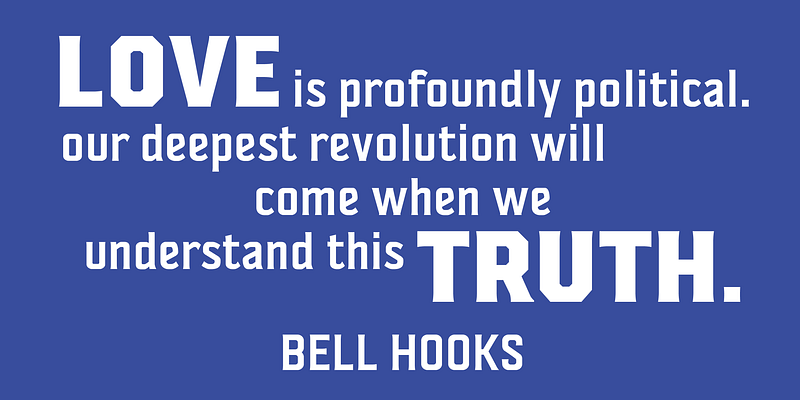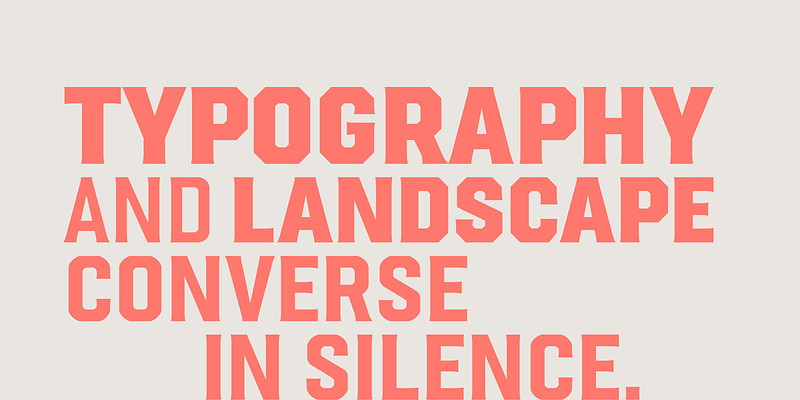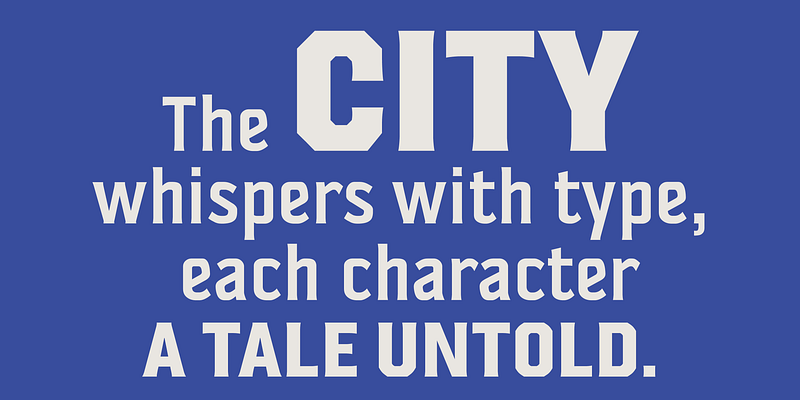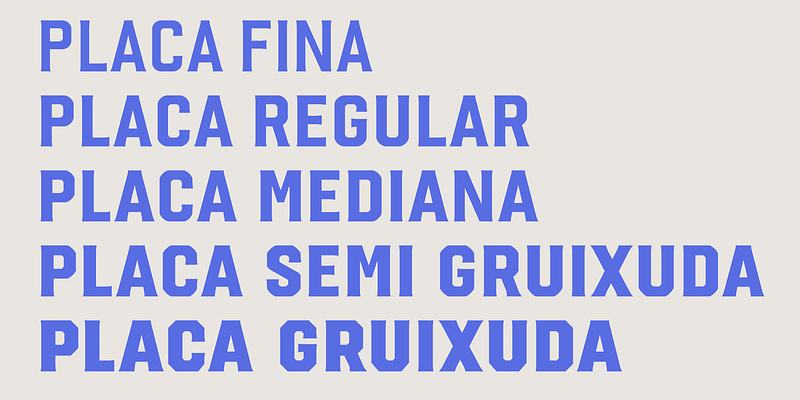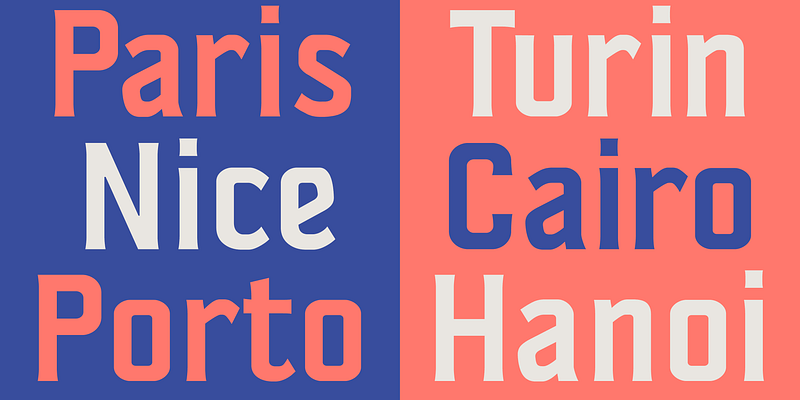
Placa is Laura’s typographic interpretation of the most prevalent lettering style found on Barcelona’s street signs. The development of the PLACA typeface family took place in two distinct phases, beginning as a specific commission for the documentary ‘Barcelona. The Rose of Fire’. Years later, Laura decided to revitalise the typeface, expanding it into a complete typeface family. The PLACA family now ranges from “Fina” (as Light) to “Gruixuda” (as Black) weights and includes a Variable Font, improving its performance in small sizes and on screens. It is also used as a custom typeface on her personal website. The name Placa, meaning “Plate” in both Spanish and Catalan, was chosen in a conversation with Ferran from Toormix, the studio that rebranded Laura Meseguer Studio identity.